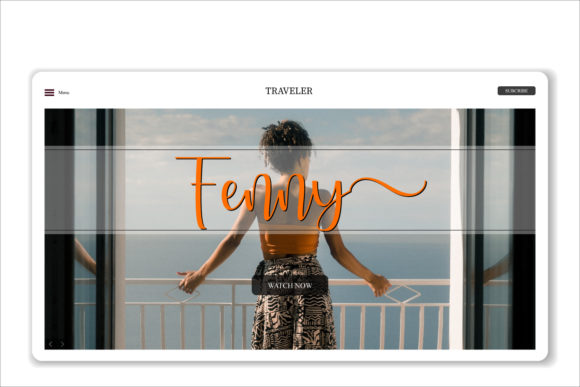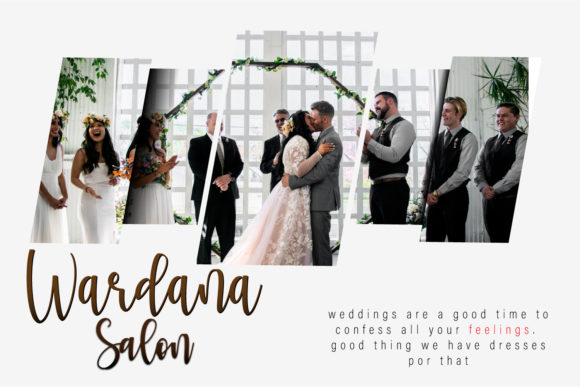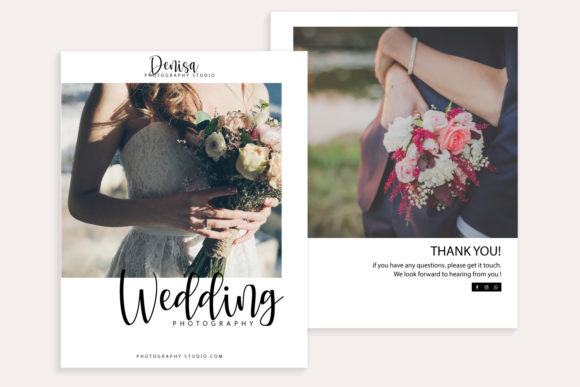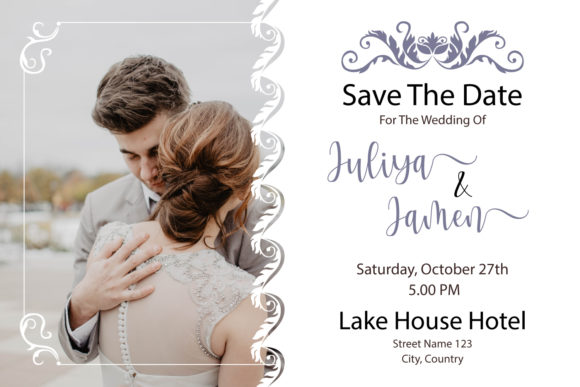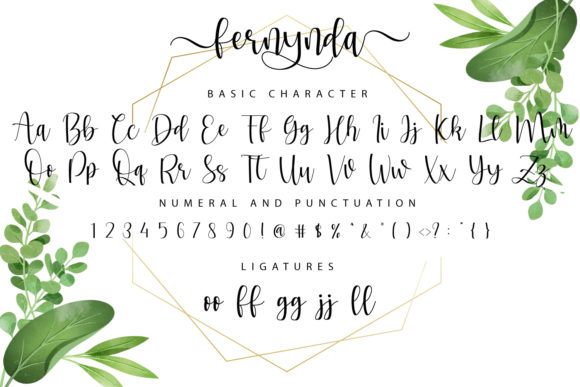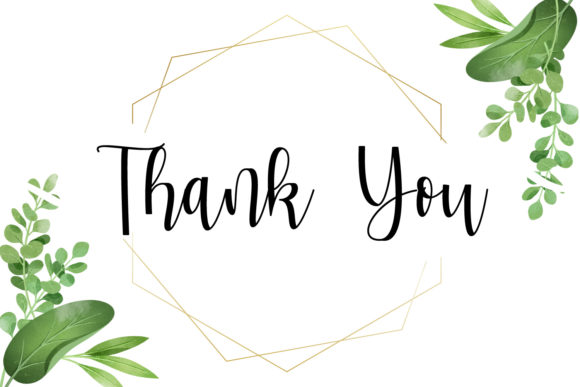
Fernynda Font
About Fernynda Font
Fernynda is inspired by classic typography and brings its own unique style to any design project. Get inspired by its authentic feel and use it to create gorgeous wedding invitations, beautiful stationary art, eye-catching social media posts, and cute greeting cards. This font is PUA encoded which means you can access all of the cute glyphs and swashes with ease! It also features a wealth of special features including alternate glyphs and ligatures.